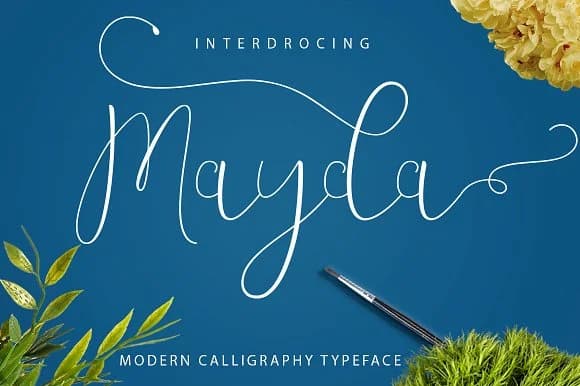
Mayda Font by Jhoen Studio is a flowing script typeface that seamlessly blends hand-lettered authenticity with professional-grade legibility at every size. The design captures genuine penmanship through its organic stroke variations and gracefully formed letterforms, delivering authentic warmth and distinctive visual personality that feels genuinely personal without sacrificing readability across diverse applications, from print to digital mediums and everything in between.
This sophisticated handwritten script thrives wherever contemporary design demands both character and elegance in equal measure. Wedding invitation suites make natural applications, as do luxury brand identity systems and artisan product labels that benefit tremendously from Mayda's natural expressiveness and distinctive aesthetic voice. The typeface performs beautifully on boutique cosmetics packaging, feature-length editorial spreads, handcrafted greeting card designs, and any creative project where readers expect to encounter genuine craftsmanship, thoughtful detail, and a distinctly human touch in the typography itself.
Mayda Font is a script font that shines as a display or heading face. Pair it with a clean sans-serif or serif font for body text β the contrast creates a clear hierarchy while the two styles stay balanced and easy to read.
Mayda Font
by Jhoen Studio